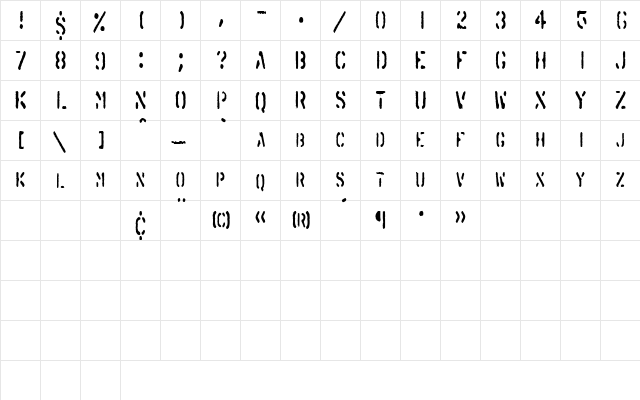
SprayStencilCondensed Regular
Design Context for SprayStencilCondensed Typeface
SprayStencilCondensed borrows the utilitarian aesthetic of stencil lettering, with its characteristic cutaways and no-frills construction lending an industrial edge.
Ideal for industrial branding, streetwear, military-adjacent aesthetics, and urban signage projects.
Pro Tip: Pair SprayStencilCondensed with raw, utilitarian design elements — exposed concrete textures, flat colour, and minimal ornamentation suit it well.